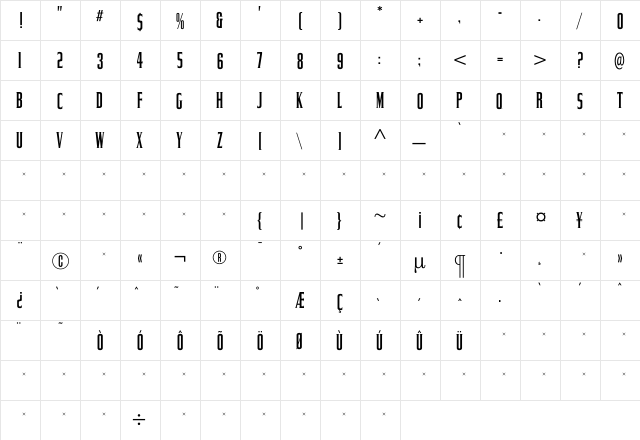
CommanderLight Regular
Design Context for CommanderLight Typeface
CommanderLight offers clean, dependable letterforms without strong stylistic allegiance, making it a practical choice for designers who need flexibility. The delicate stroke weight brings airiness and refinement to layouts.
Pro Tip: Use CommanderLight in both headline and body roles to test its range before committing to a single application.